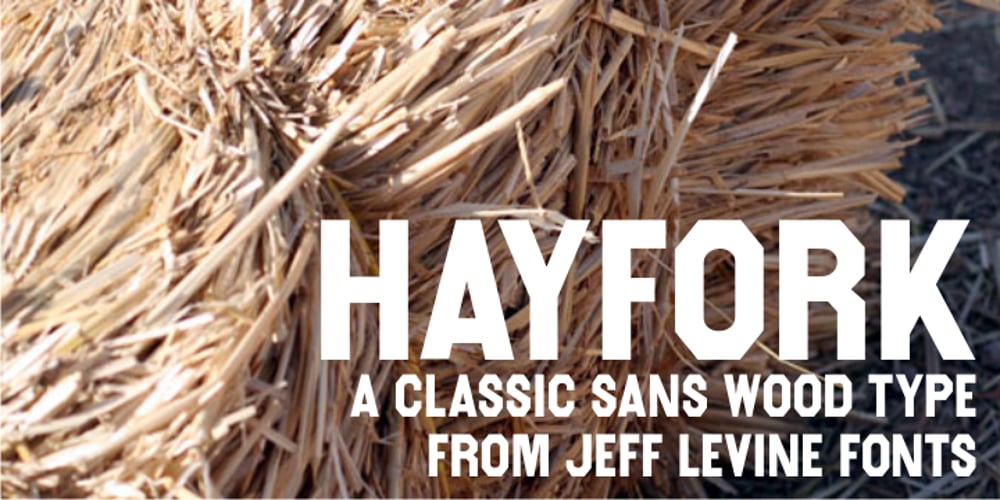
Hayfork JNL Font Family was designed by Jeff Levine and published by Jeff Levine. Hayfork JNL contains 1 styles and family package options. Hayfork JNL is based on a vintage wood type sanserif typeface from the 1880’s. A font of similar design is Eckhardt Poster Display, which was modeled from a 1920’s sign painter’s handbook; no doubt getting its inspiration from this wood type’s design.